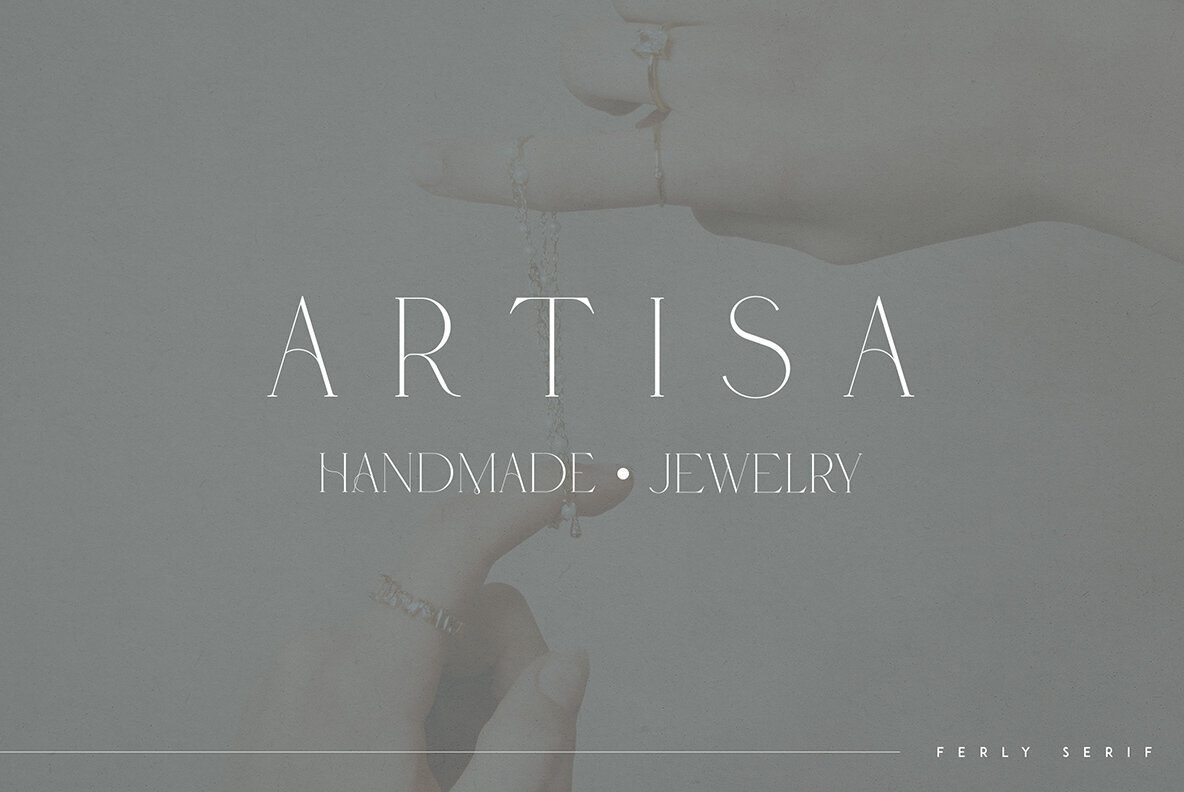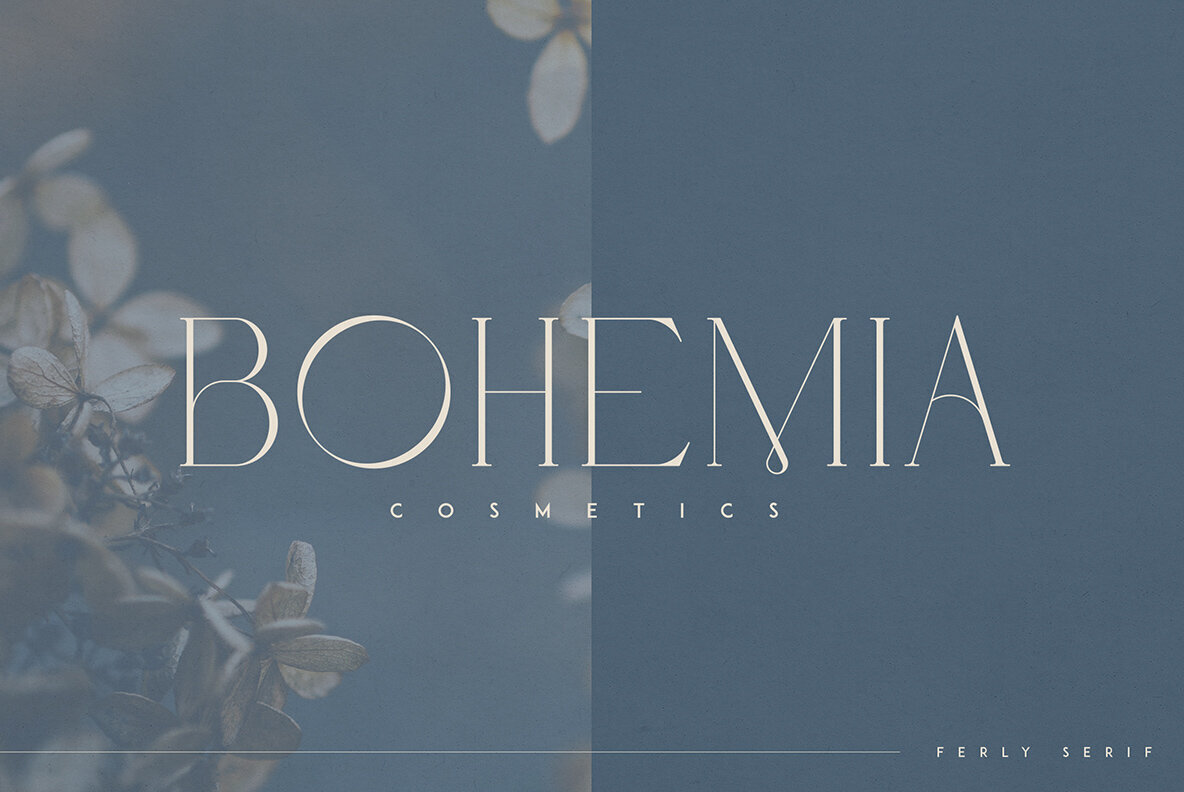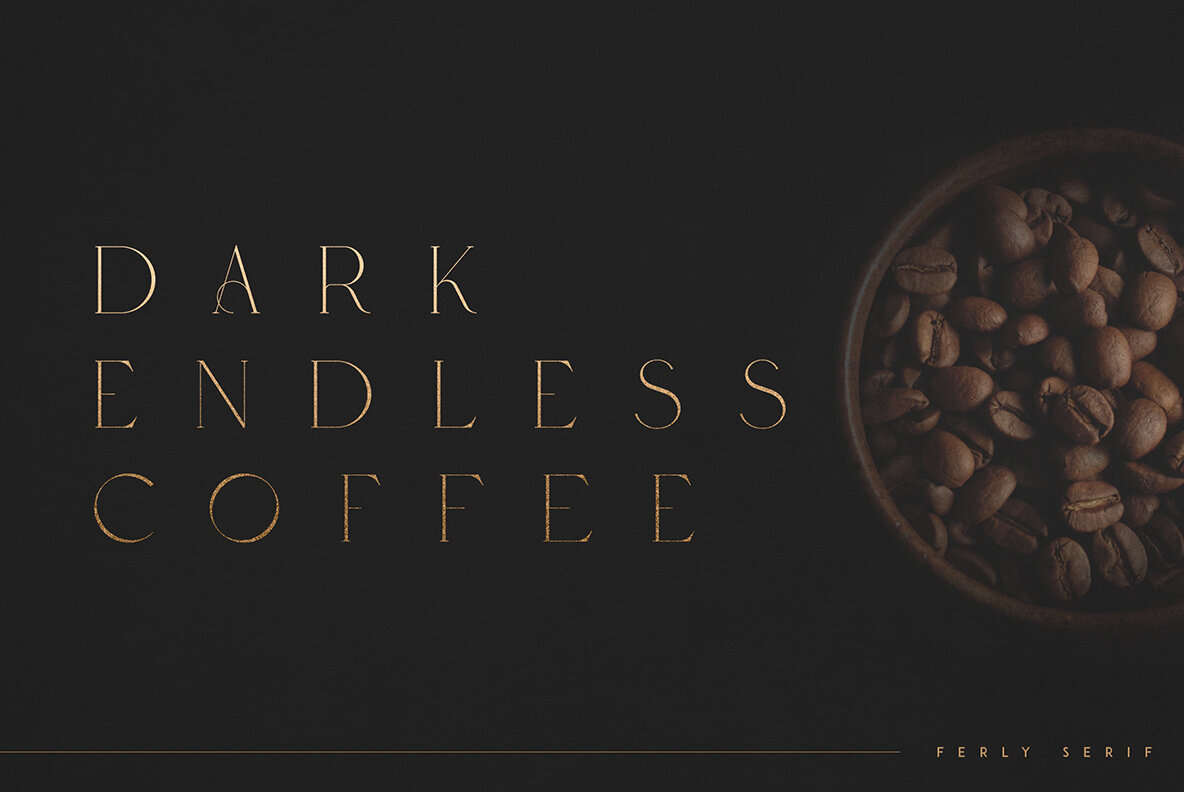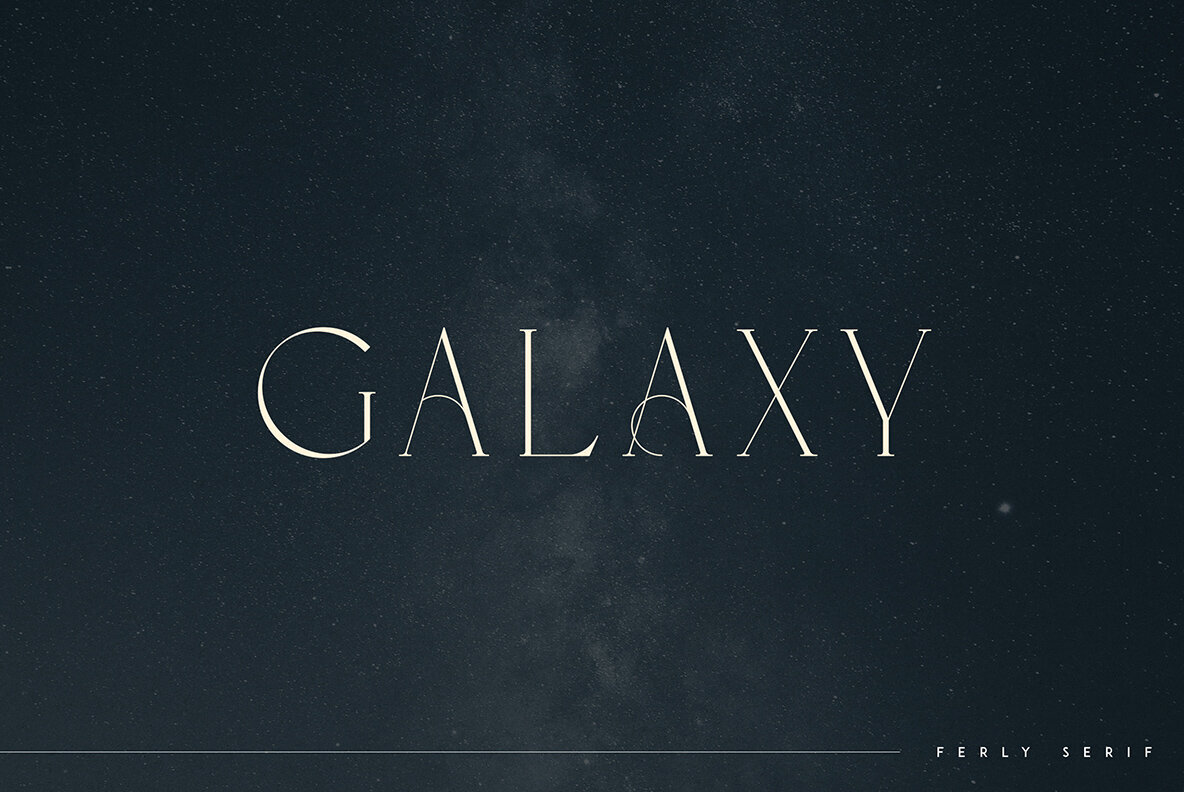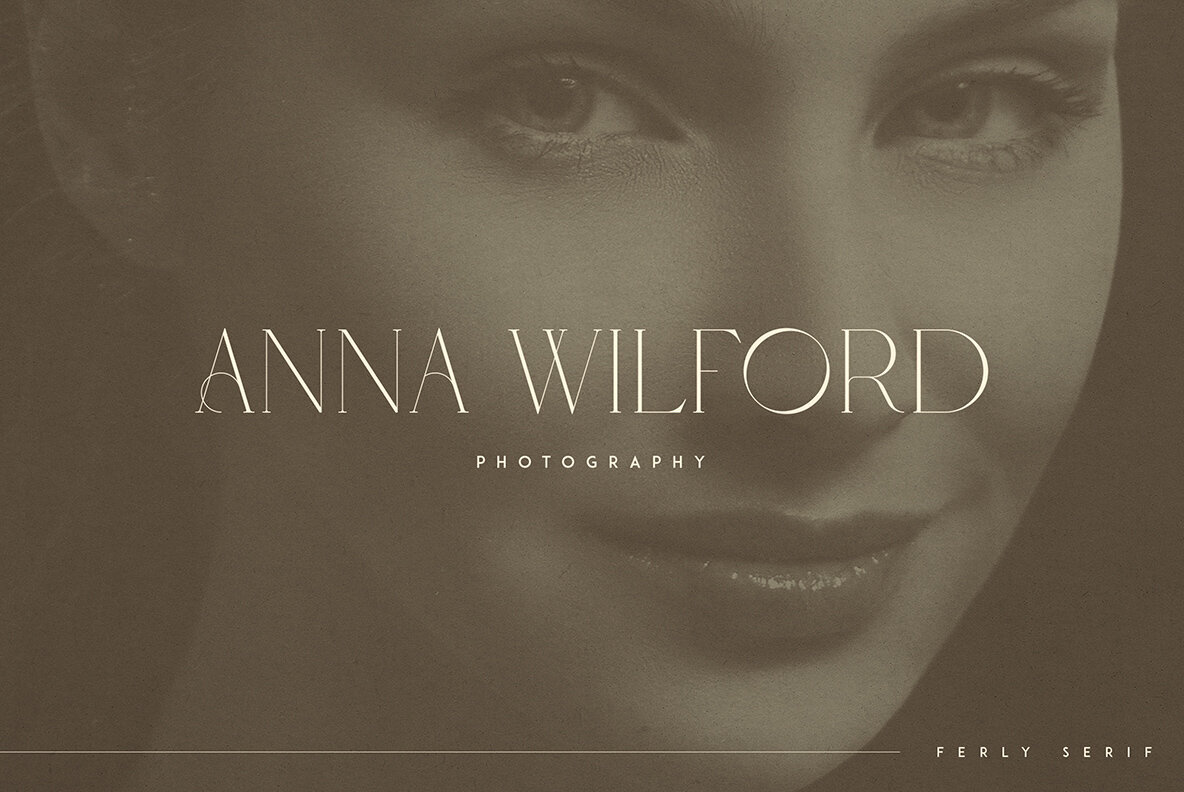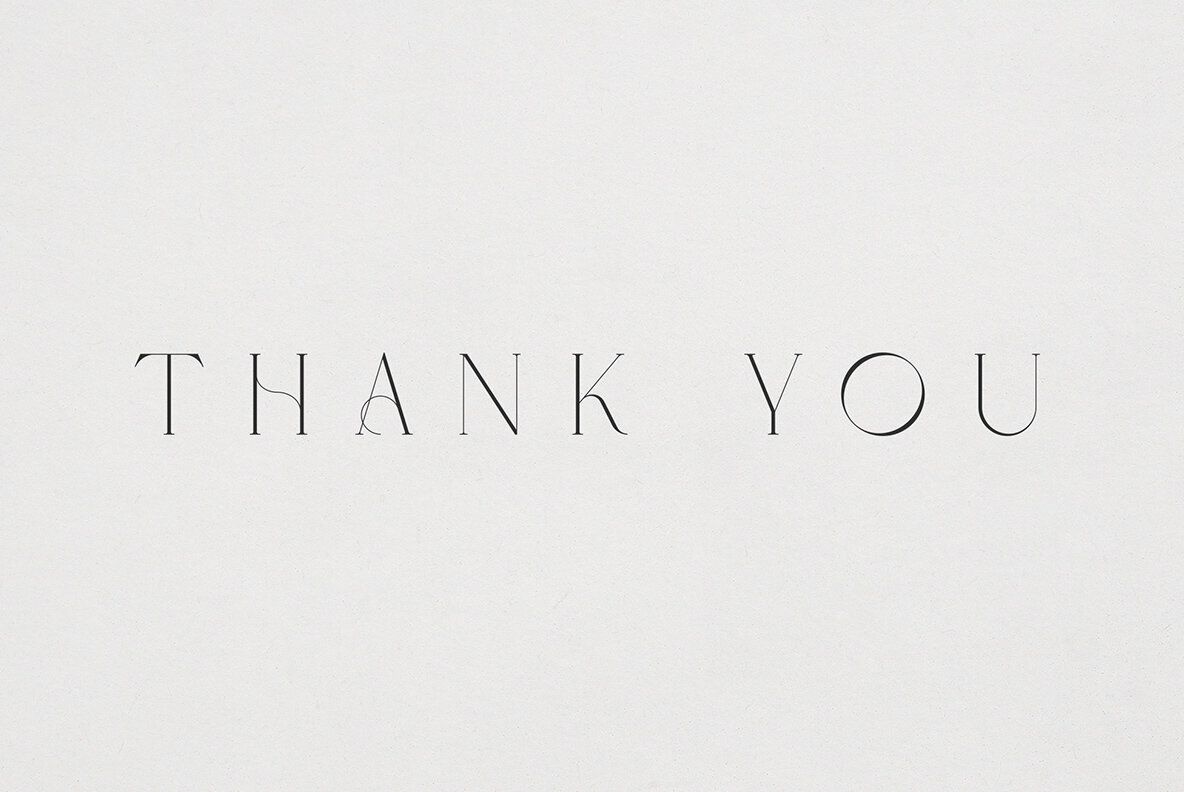
Ferly Font
Ferly
Ferly represents a refined serif font with an elegance that evokes luxury and delicacy. Its versatility makes it suitable for both large and small sizes, accommodating a diverse array of design projects. The font’s unique character brings sophistication to branding projects, home-ware designs, and product packaging. It also excels in magazine headers or as a stylish text overlay against any background image.Ferly: Elegant Serif Font